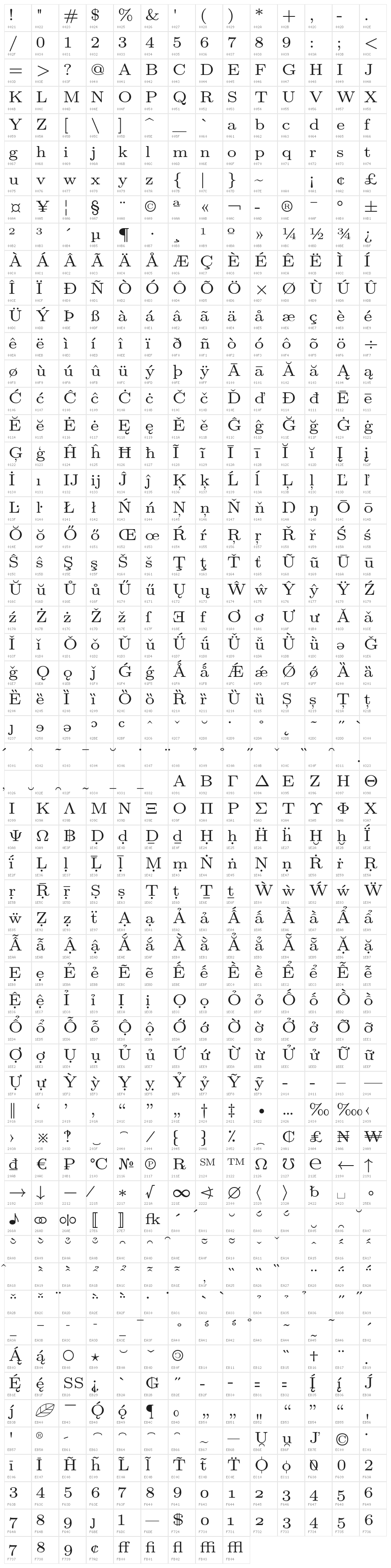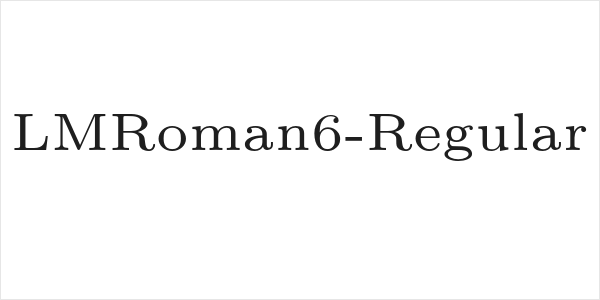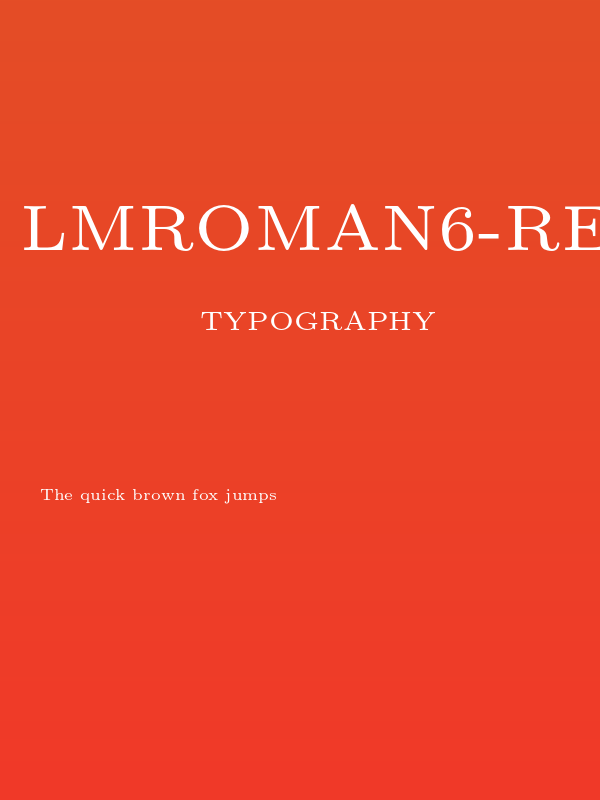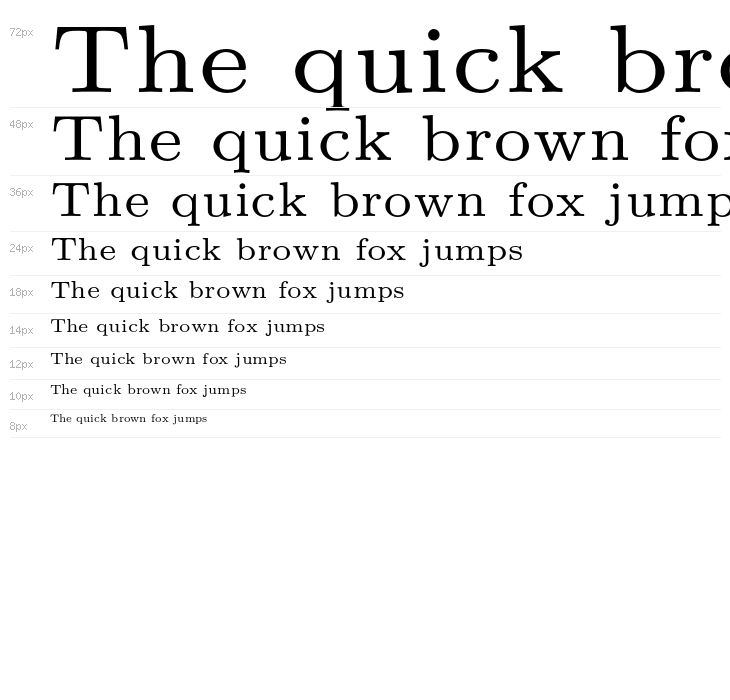
LMRoman6-Regular Font
LMRoman6-Regular Description
This font features a classic serif style with elegant and refined strokes. The uppercase letters are well-proportioned, with a slight contrast in stroke thickness that adds a touch of sophistication. The lowercase letters maintain a consistent style, with smooth curves and sharp serifs that enhance readability. The numerals are clear and distinct, making them suitable for various applications. Special characters are designed with the same attention to detail, ensuring a cohesive look across all glyphs. This font embodies a timeless aesthetic, making it versatile for both traditional and modern design projects.
| Use Case | Body text, Editorial design, Branding |
| Proposed Projects | Ideal for book typesetting, formal invitations, branding, and editorial design. |